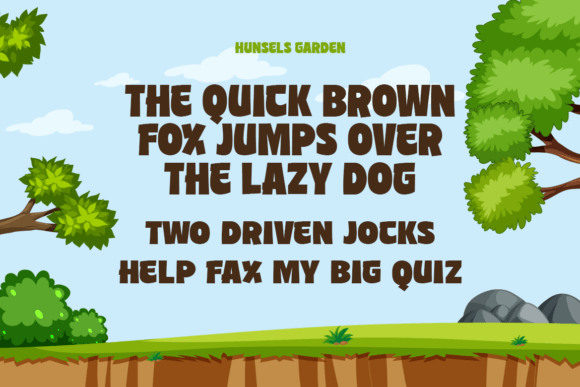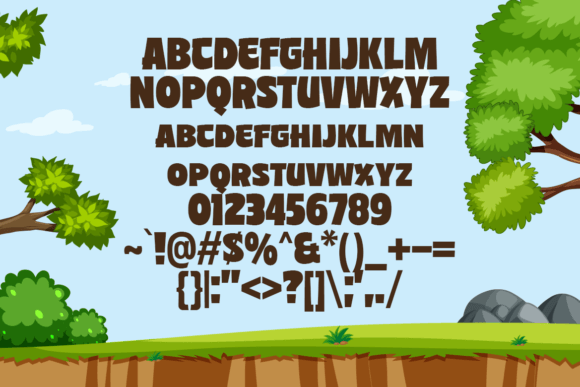
Introduction to Hunsels Garden Font
Introducing Hunsels Garden – Unleash Your Playful Side.
Capture the essence of joy and bring your designs to life with our enchanting font, Hunsels Garden let your creativity run wild as you dive into a world of playful elegance, where every letter dances with delight Whether you’re crafting invitations for a children’s party, designing a captivating logo, or adding a dash of fun to a brand, Hunsels Garden adapts effortlessly to any context.
Key Features of Hunsels Garden Font
Why Choose Hunsels Garden Font?
Hunsels Garden Font offers exceptional quality and versatility, making it a valuable addition to your design toolkit. Whether you’re creating for personal projects or commercial use, Hunsels Garden Font delivers professional results.